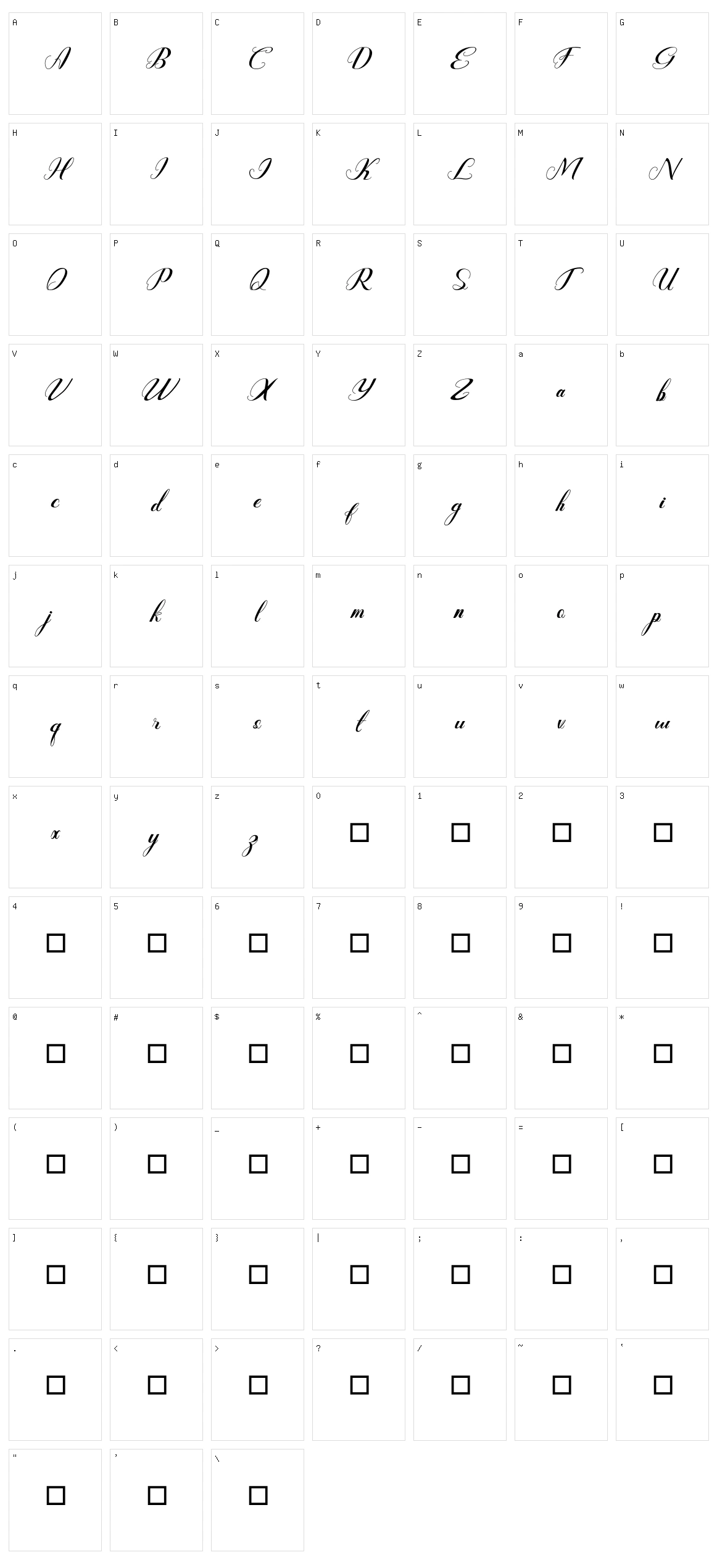
The free font Rembullan is carefully designed by SSI.Scraps, showcasing a thoughtful balance of creativity and usability and falls under the Script font style. When you download the ZIP file, it contains only 44.7 KB of font files, making it lightweight and quick to download. Please review the license details below to understand permitted usage and distribution rights. If license information is not available, we recommend using this font for personal projects only or contacting the author directly for commercial usage permissions.